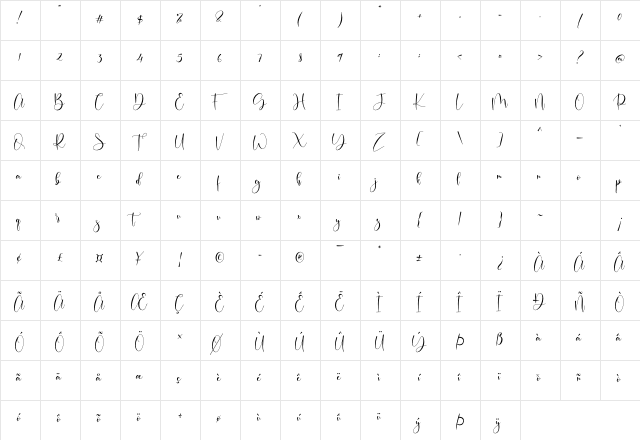
Belindia Regular
| Designer | Nissa Nana |
Design Context for Belindia Typeface
Belindia is a composed and adaptable typeface that performs quietly and consistently across a wide range of design contexts.